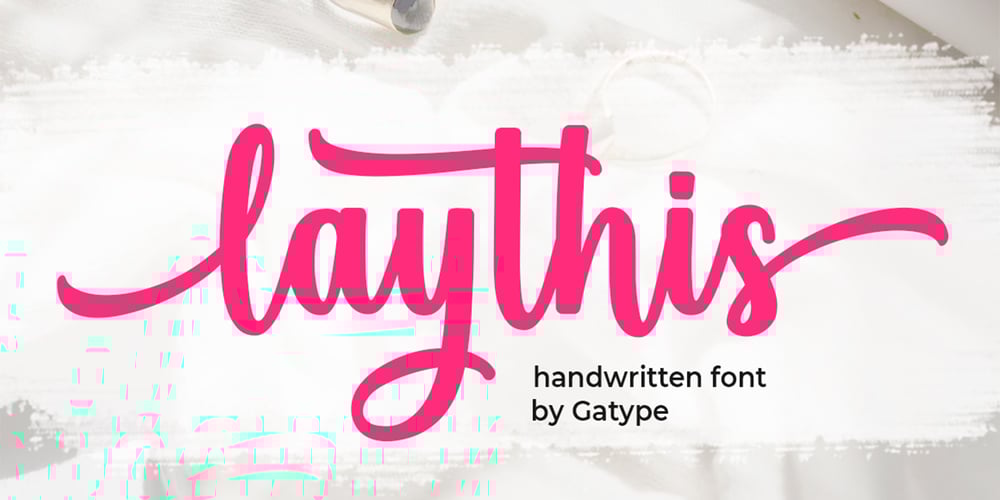
Laythis Font Family was designed by khaidir and published by Gatype. Laythis contains 1 styles and family package options. Laythis – Modern Signature Font. It comes with an elegant and modern style that is perfect for making any design stand out! This font is perfect for branding, wedding invitations, magazines, mugs, business cards, quotes, posters and more.Here’s what’s included:Laythis. OTFHelp FilesLaythis Type Features:Uppercase – LowercaseNumbers & PunctuationEncoded PUAsPerfect for Headlines, Logotypes, Signs, Posters, Letterheads, T-Shirts and more.Hope you enjoy with our FontsThank you